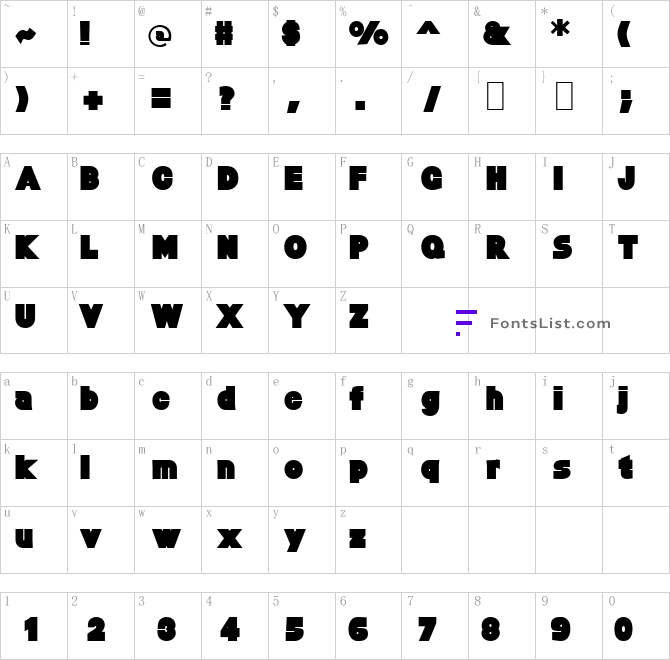
- Font Name:Baltar
- Subfamily:XHeavy
- Subfamily:BaltarXHvy
- Full Name:Baltar Extra Heavy
Baltar-Extra-Heavy.ttf is a very beautiful artistic font, Baltar-Extra-Heavy.ttf is widely used in the design and printing of various books and pictures,Baltar-Extra-Heavy.ttf has a strong visual impact,Baltar-Extra-Heavy.ttf is a commonly used font in newspapers, magazines and books, and is used in posters, e-commerce Poster design, store design, logo design, font design and other fields.Baltar-Extra-Heavy.